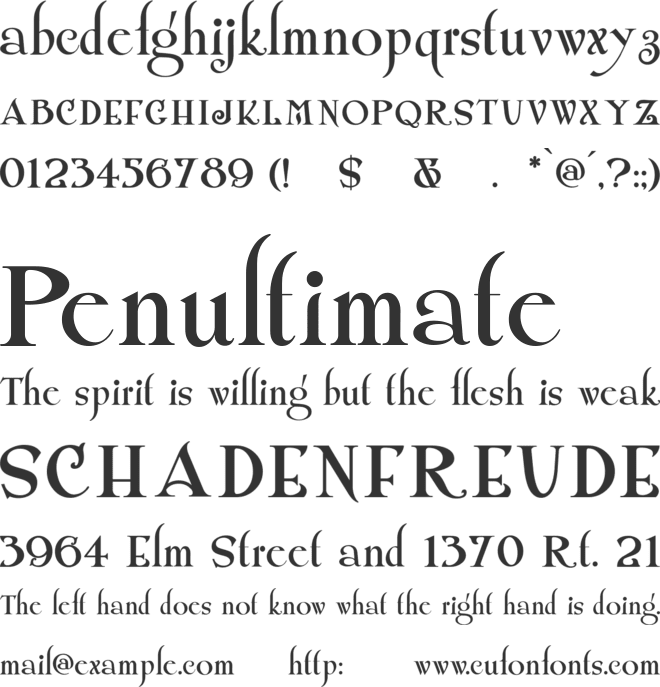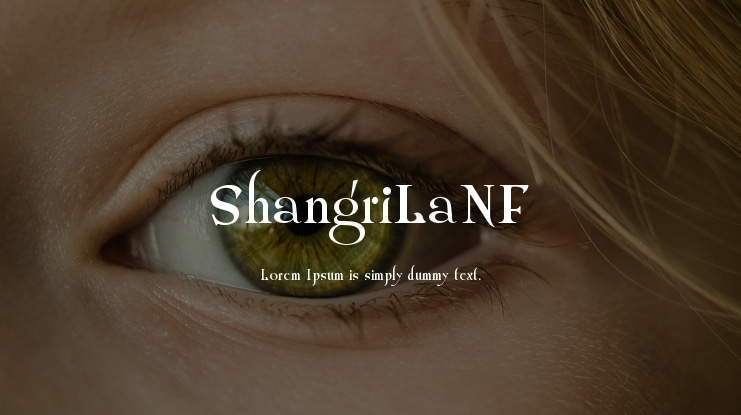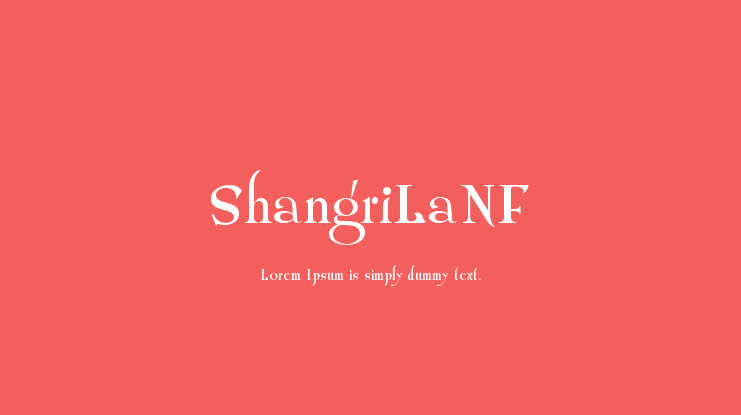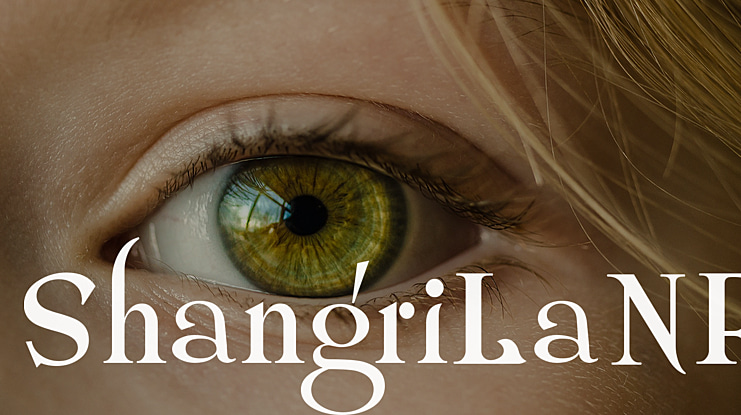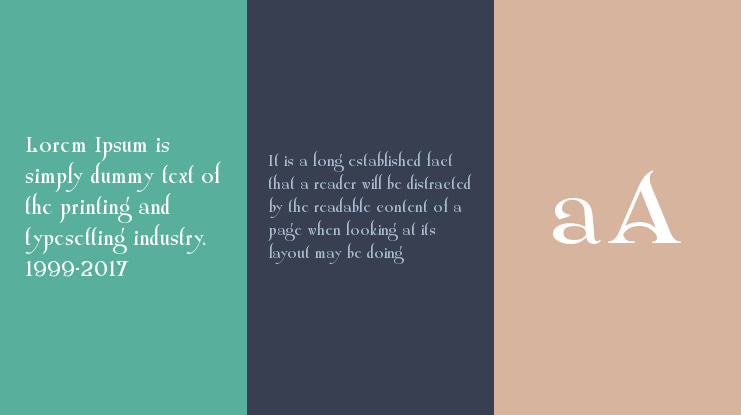
ShangriLaNF Font Family
A little gem gleaned from the pages of the 1922 opus Modern Show Card Writing by Joseph Bertram Jowit. Although the font suggests exotic, faraway places (hence its name), it was most likely originally used to peddle toothpaste or shirt collars at the point of sale.